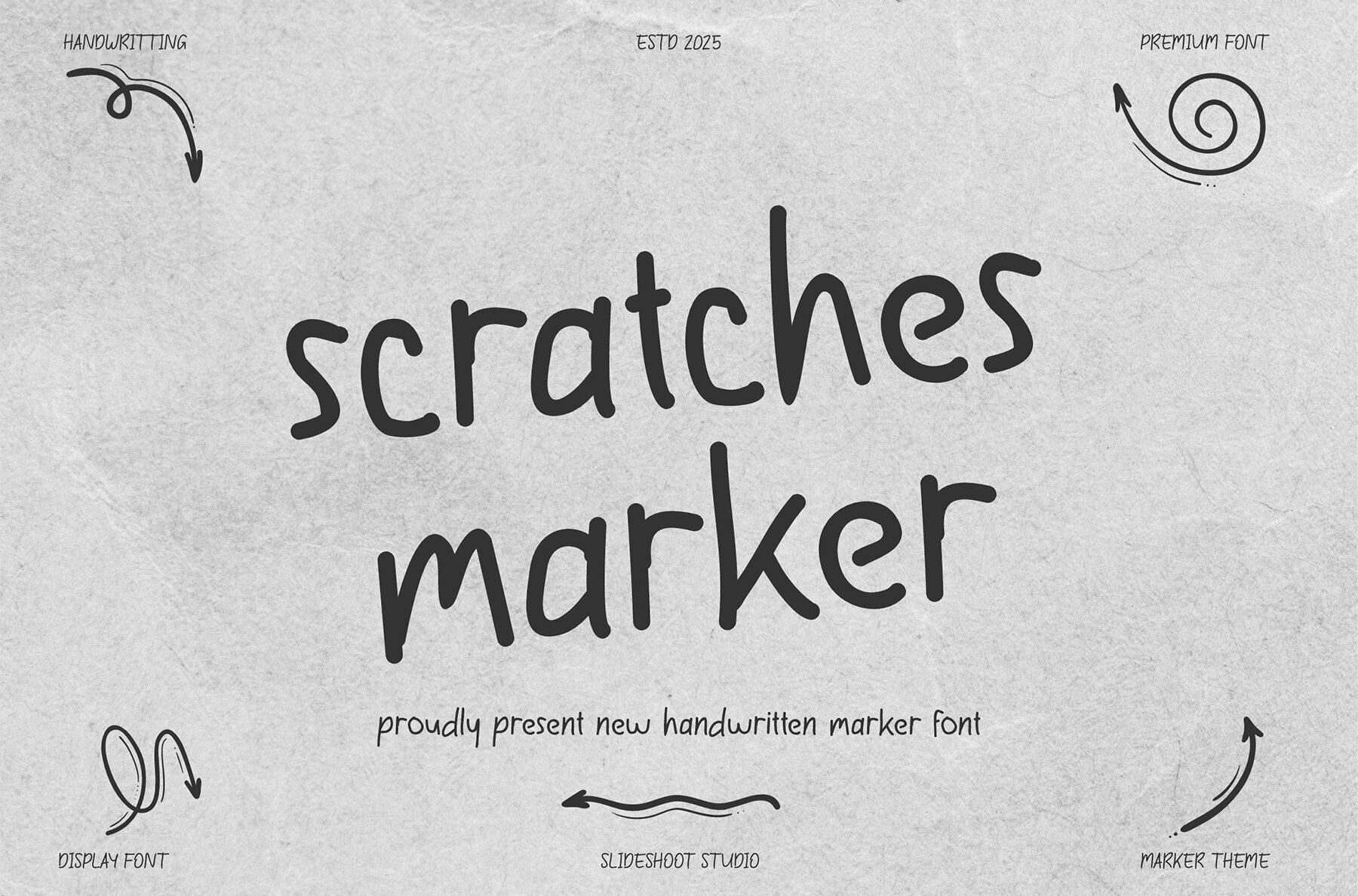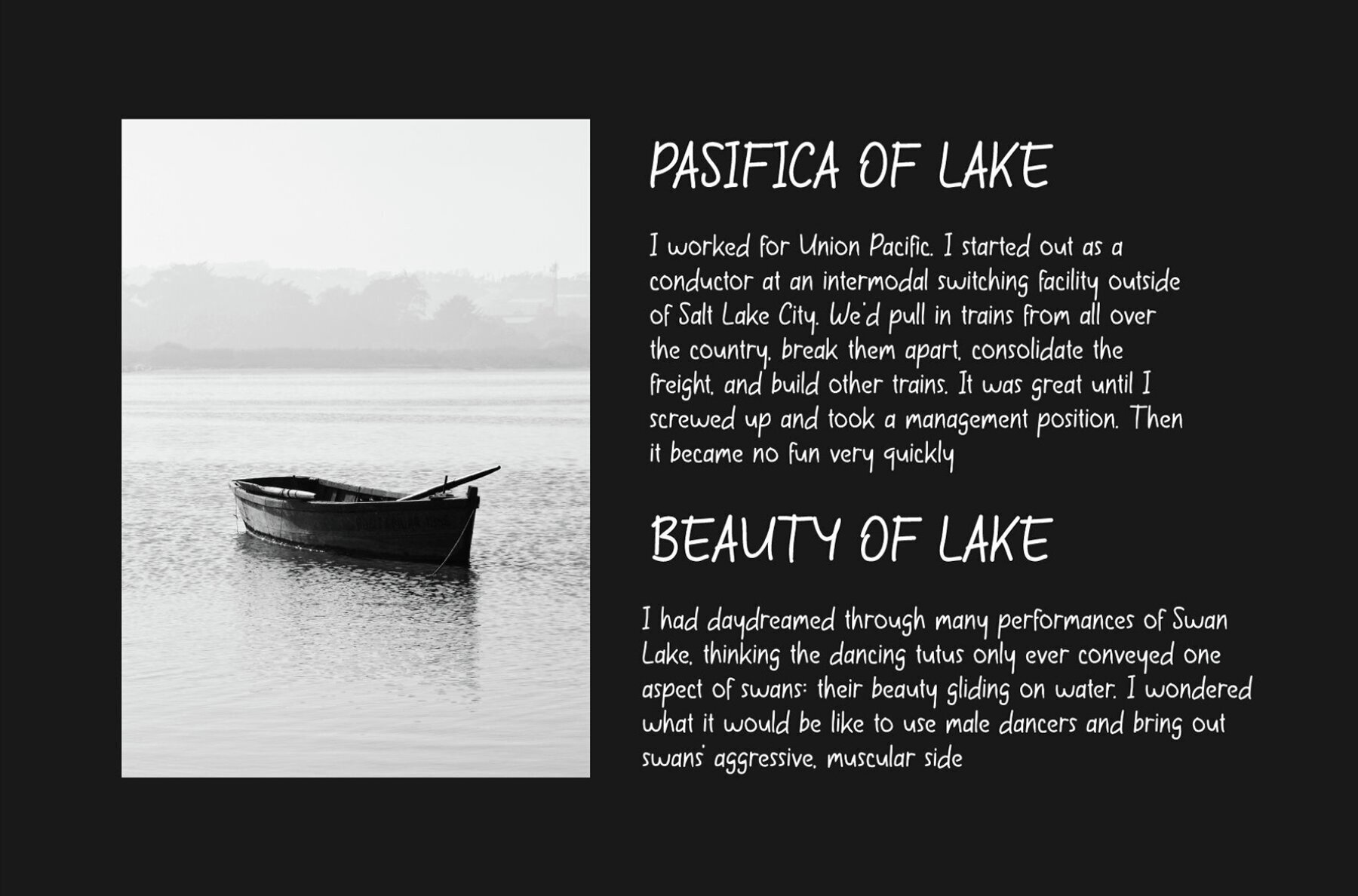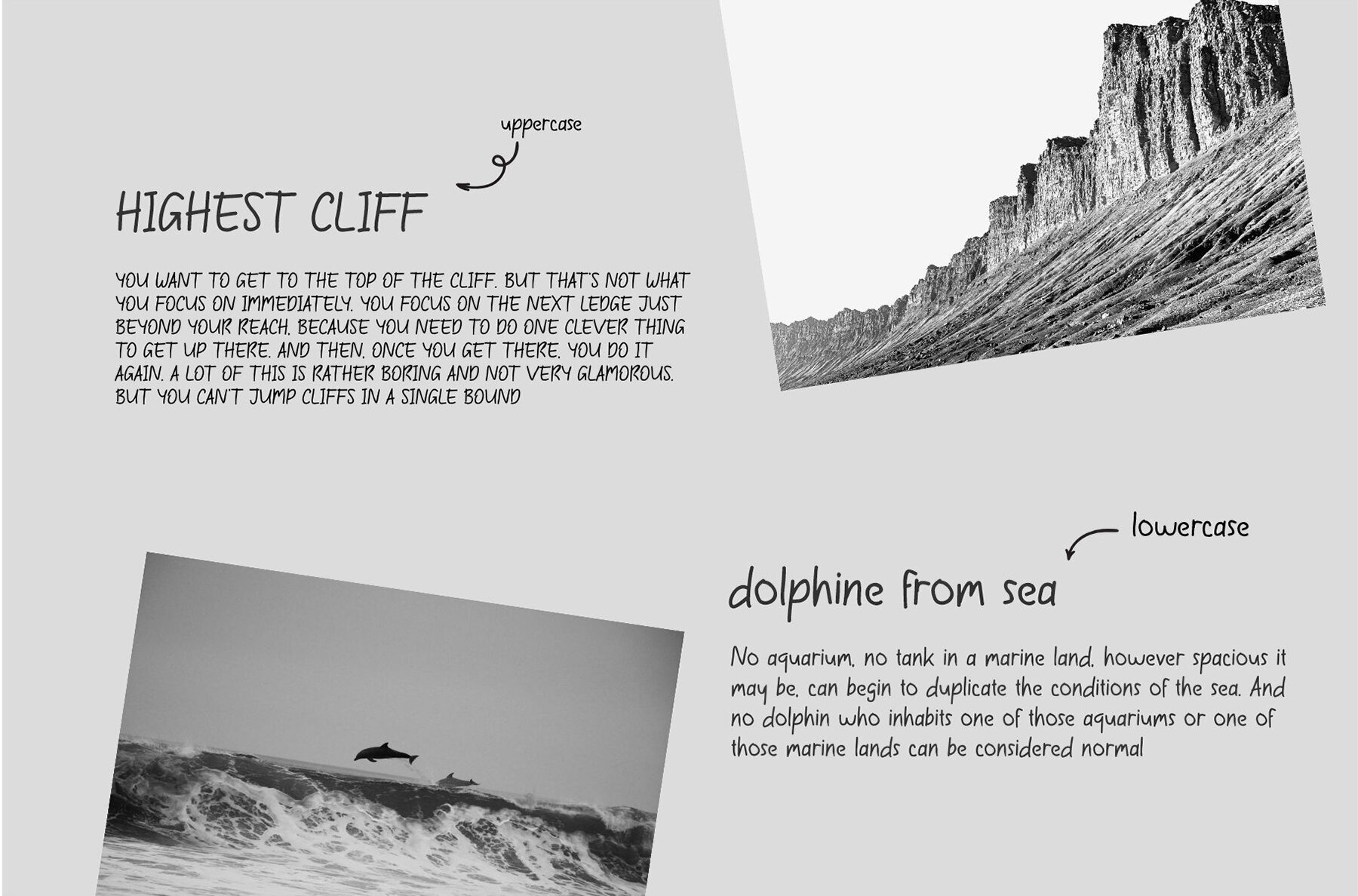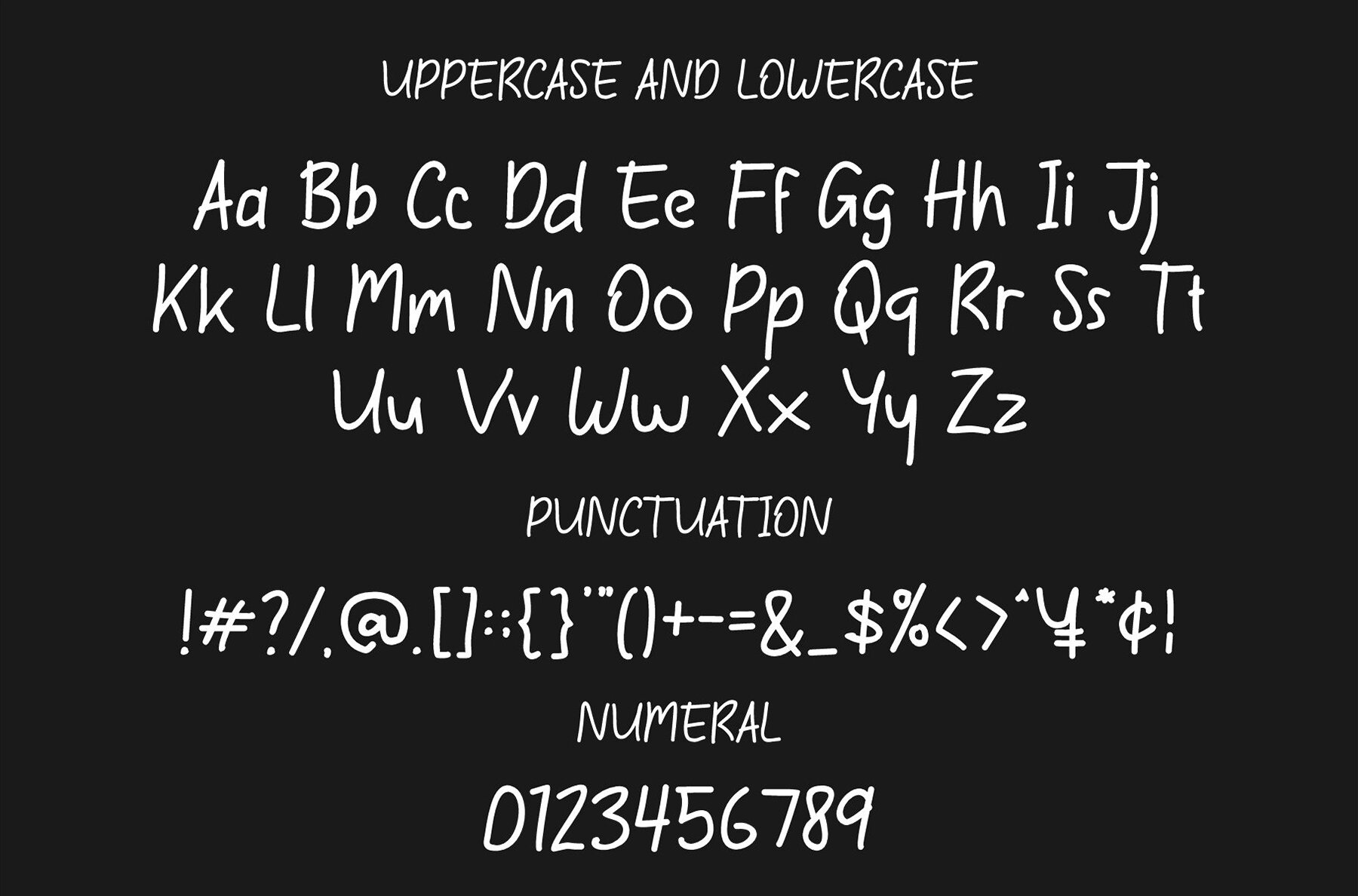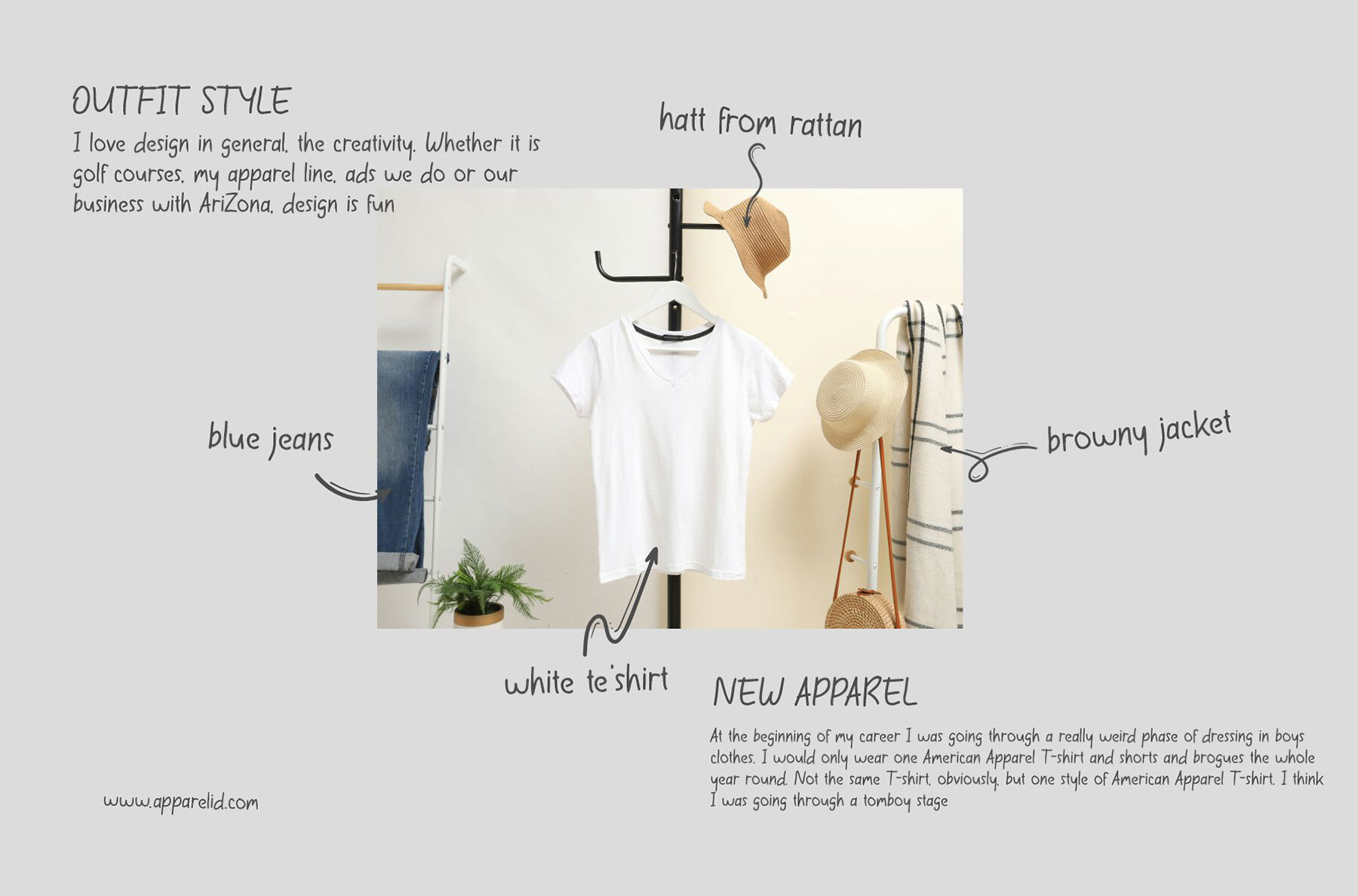
Scratches Marker Font
Scratches Marker
Scratches Marker is a handwritten display font that encapsulates a modern, trendy, and charming vibe. Its distinct wood-themed character brings a fresh twist to your designs, making it perfect for a variety of creative projects. Whether you're working on invitation cards, company logos, movie titles, or branding, this font is versatile and stylish.Scratches Marker: A Unique Display Font